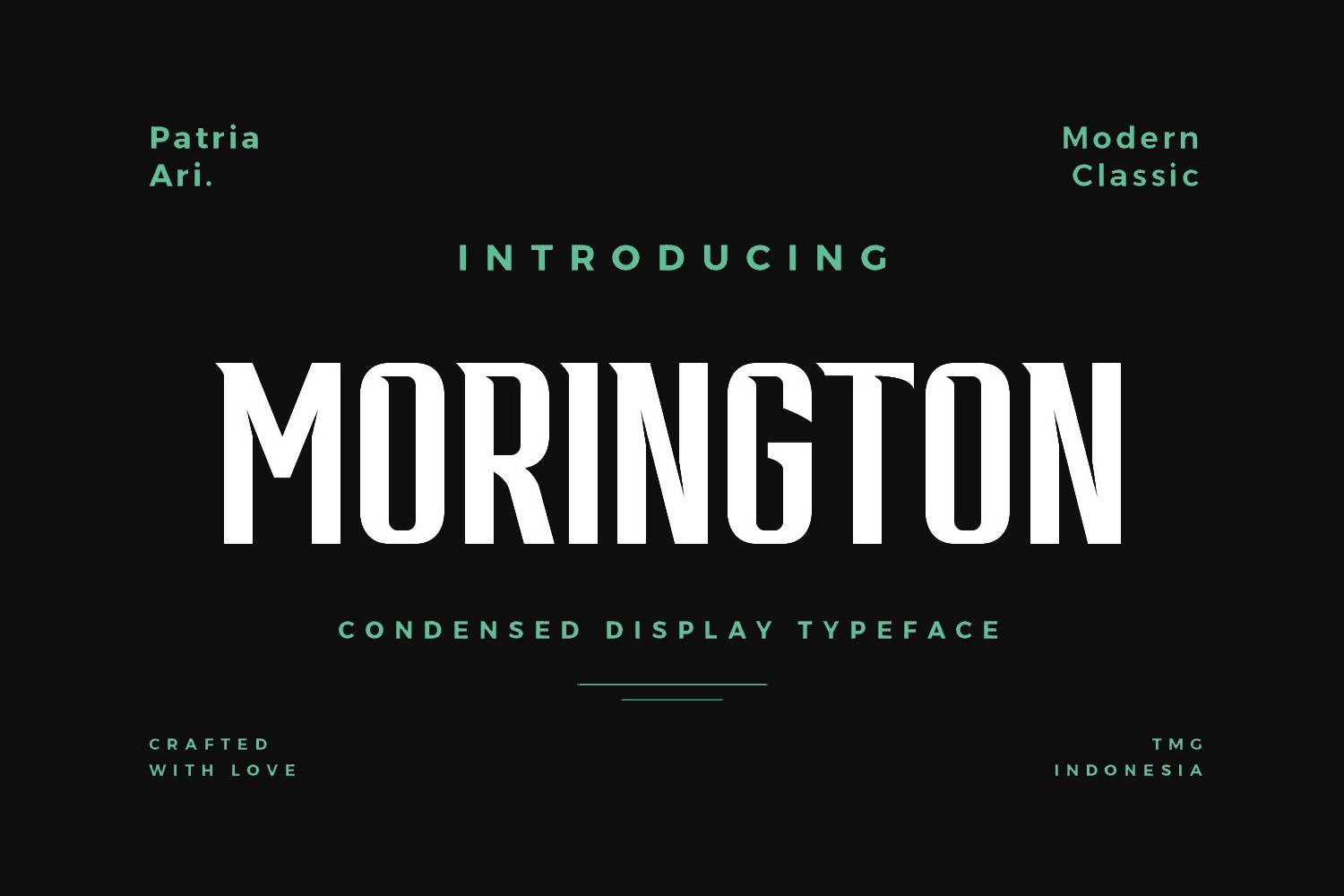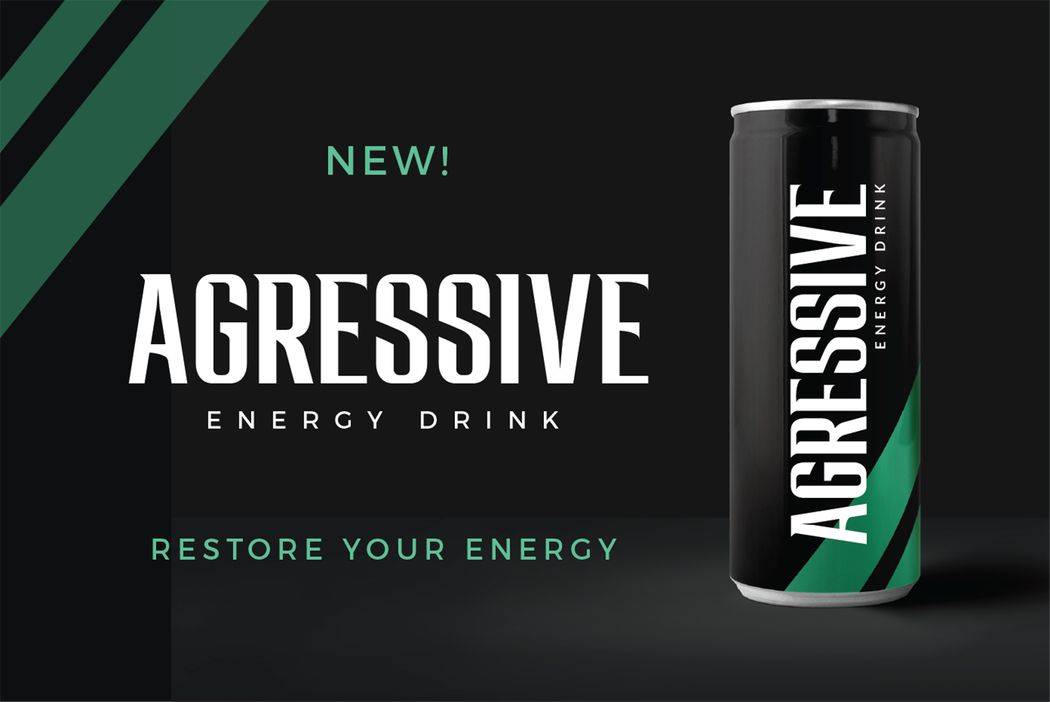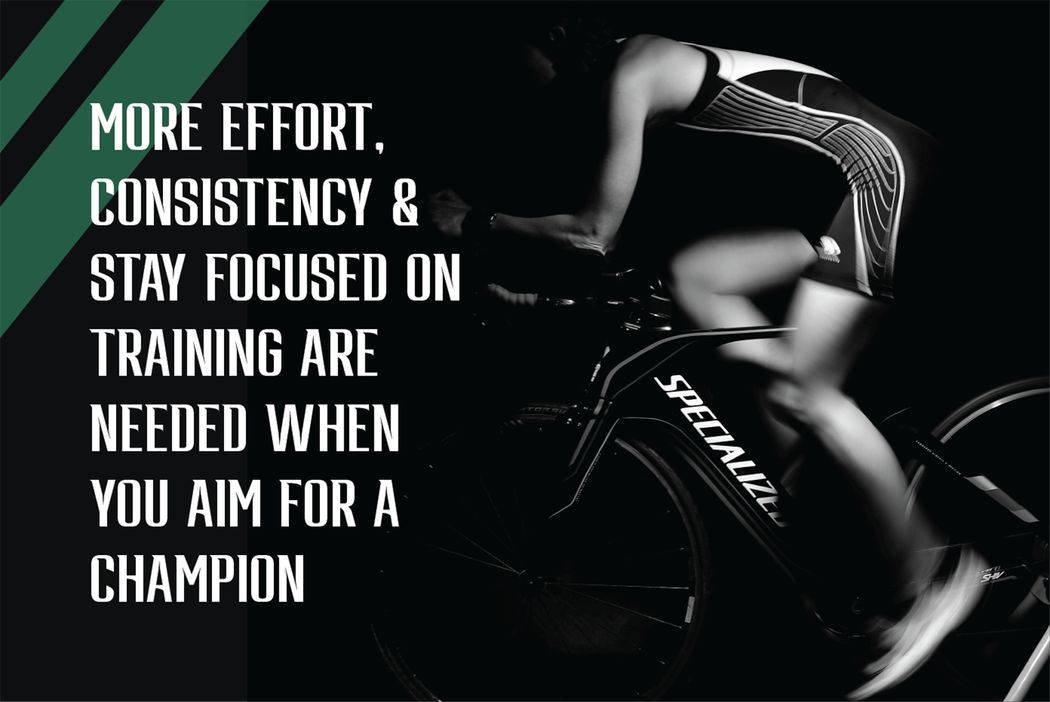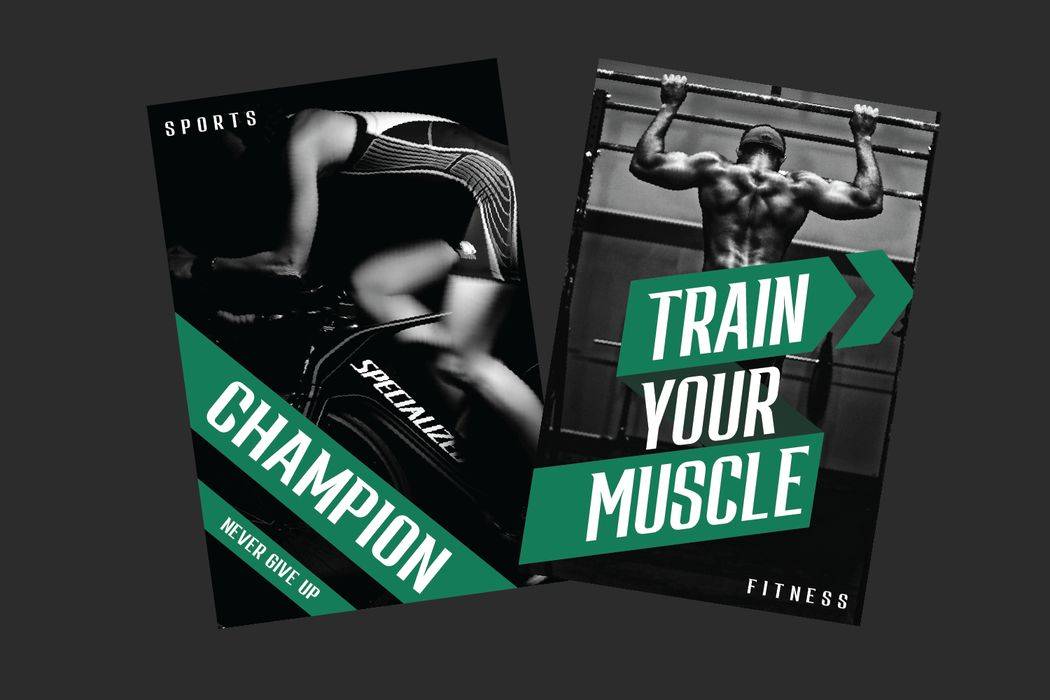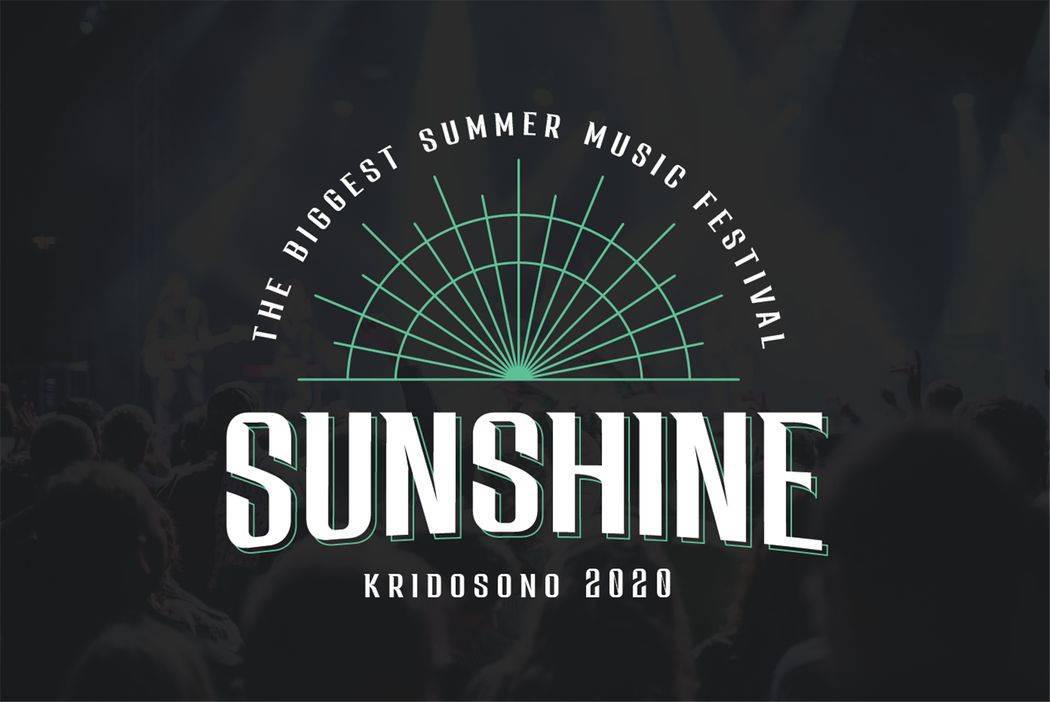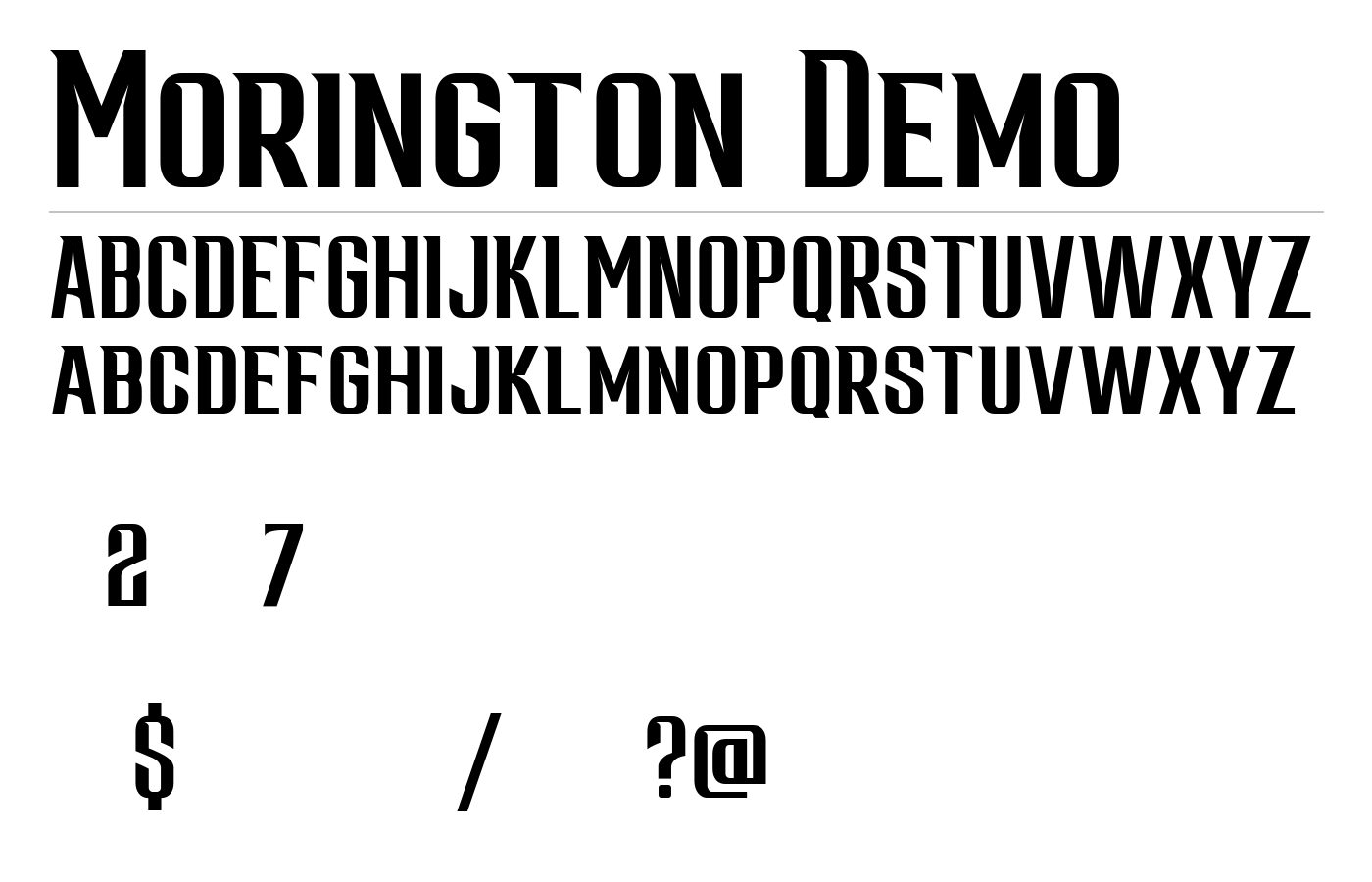
Morington is a bold, condensed sans serif font with a strong vertical emphasis and sharp, angular details that give it a modern, industrial feel. Its tall, narrow letterforms with consistent stroke weight and geometric shapes make it ideal for impactful headlines, branding, and packaging where a confident, assertive look is desired. This font works best in designs that need a clean but distinctive style that commands attention.
Morington Font
About Morington Font
| Font family | Morington Font |
| Release date | 2020-02-29 |
| Designer | Patria Ari Wijonarko |